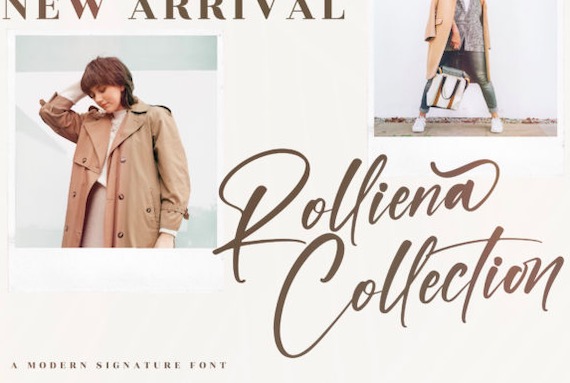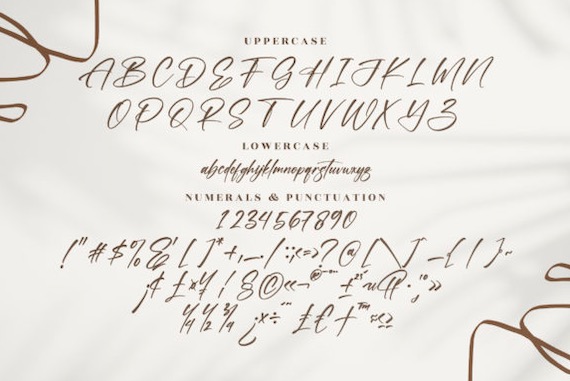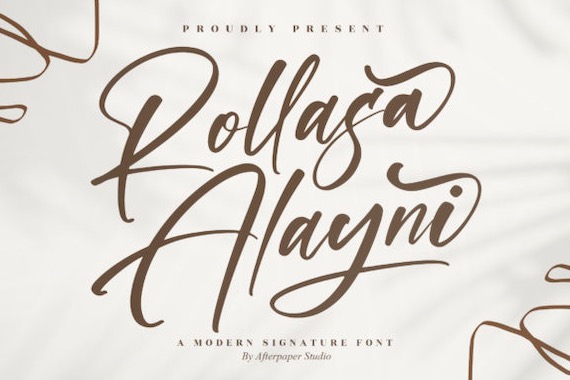
Rollasa Alayni Font is a flowing, classy, and delicate handwritten script typeface that was created and shared by Afterpaper. Rollasa Alayni has well balanced and cute characters and as a result, it matches a wide pool of designs. Rollasa Alayni is PUA encoded which means you can access all of the glyphs and swashes with ease!
Rollasa Alayni Handwritten Font
Publisher: Afterpaper Studio